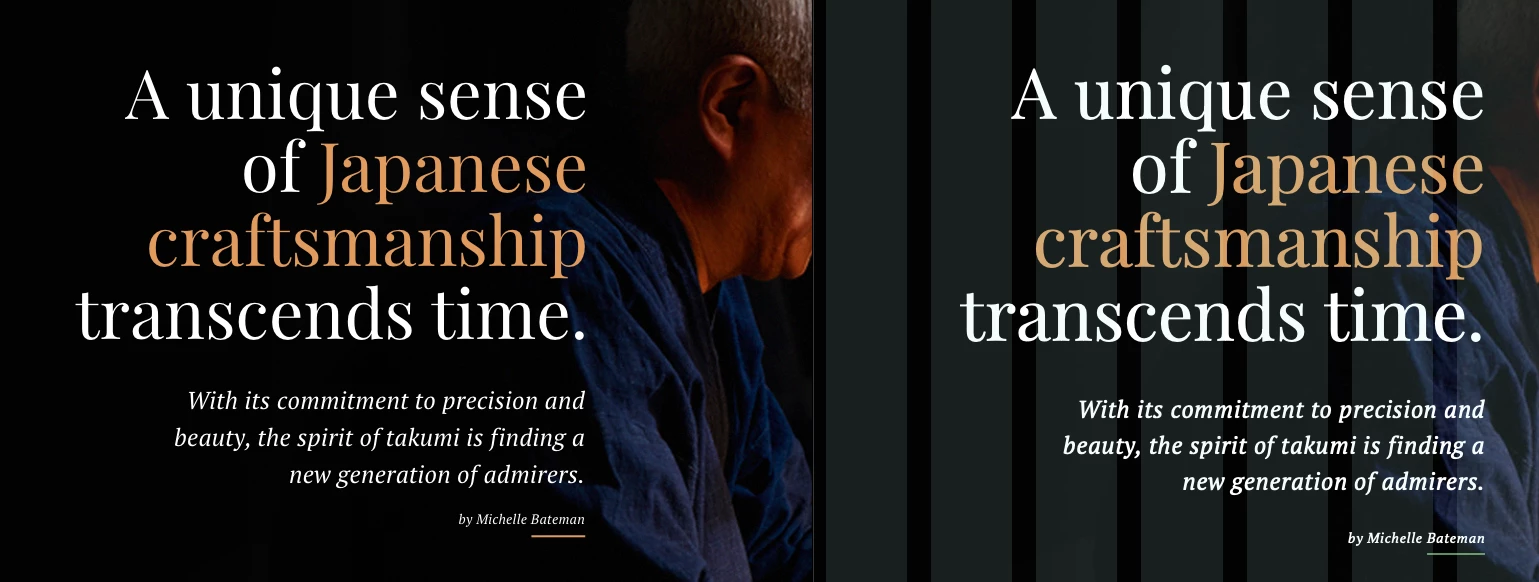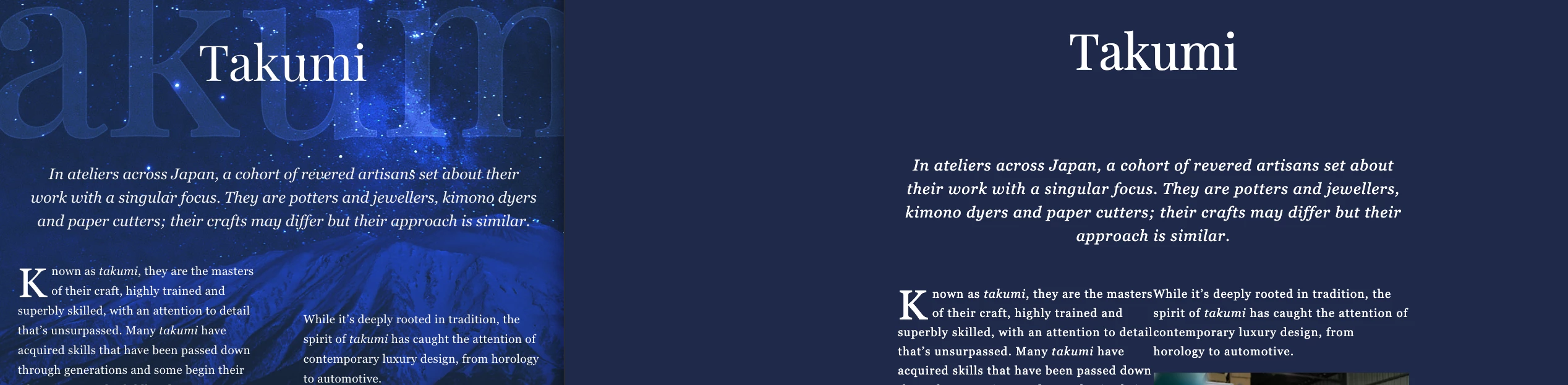
Font weights appearing heavier in browser (chrome and safari) then in Xd
Hi there, I am noticing very major differences in font weight between Xd and my web browsers.
Please look at the attached examples to understand how bad this looks.
In the browser, both fonts appear to be bold, when they are just referencing the regular weight.
The Playfair Display is the large heading, and and Georgia is the remainder.
Georgia is just being used as it is installed with Microsoft Windows or Office.
We tried PT Serif instead of Georgia, loading in with Google Fonts and then Adobe fonts, and the same issue occurs.
Any ideas on how to fix this?
I found a solution, put the following in your body tag in your html.
body {
-moz-osx-font-smoothing: grayscale;
-webkit-font-smoothing: antialiased;
}
Sorry, but that is not an acceptable solution. A better solution would be the ability to *disable* font smoothing within the XD tool, either as a global setting or per document.
Applying font smoothing can cause usability issues: https://usabilitypost.com/2012/11/05/stop-fixing-font-smoothing/
As a designer and font creator I also want to weigh in on the "acessability" issue here. In many cases when we use webfonts as designers (in programs like Figma) we see the correct way that the fonts are ment to look like. Same for images from websites that sell fonts (as showen in this article). I think that it is incorrect to talk about this from a accesability issue and focus on the way that the designers intended the fonts to look like. If you are using a display font with very thin lines, they should render in thin lines (and you should use the correct font rendering for your web project). Maybe not the best font to use from an accesabilty perspective, but it is the "correct" way that the font should look like..
Sorry, but that is not an acceptable solution. A better solution would be the ability to *disable* font smoothing within the XD tool, either as a global setting or per document.
Applying font smoothing can cause usability issues: https://usabilitypost.com/2012/11/05/stop-fixing-font-smoothing/